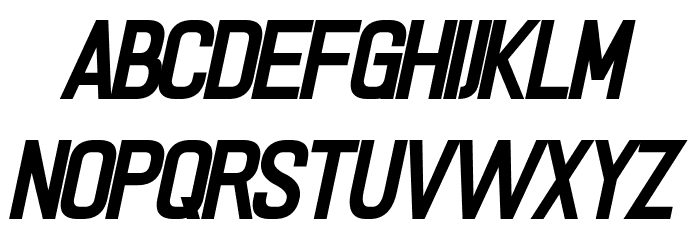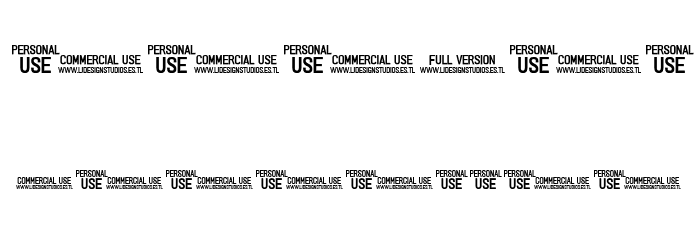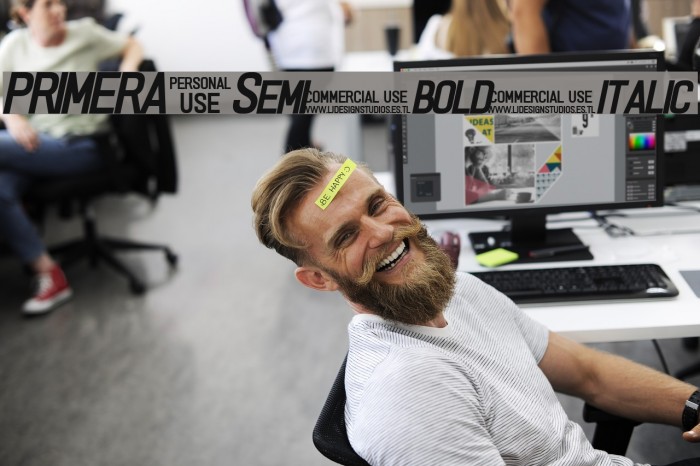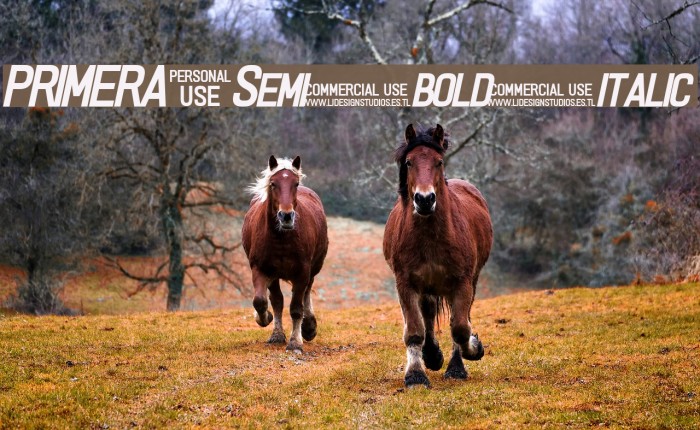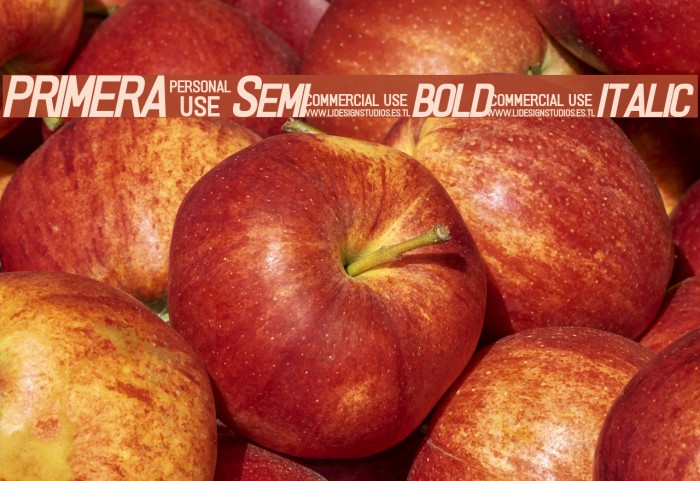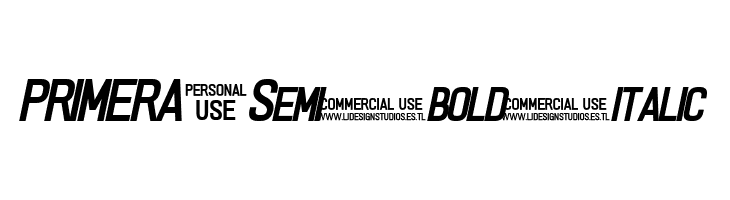
PRIMERA Semi-bold-italic Font
This font features a bold and dynamic style with a distinct italic slant, giving it a sense of motion and energy. The characters are designed with a semi-bold weight, providing a strong presence without being overly heavy. The strokes are consistent, with medium contrast, ensuring readability while maintaining a sleek appearance. The uppercase letters are particularly striking, with sharp angles and clean lines that convey a modern and professional look. The font's overall style is contemporary, making it suitable for a variety of design applications where a bold statement is needed.
A bold, italic font with a modern and dynamic style.
- Proposed Projects: Ideal for sports branding, dynamic posters, modern advertising, and bold headlines.